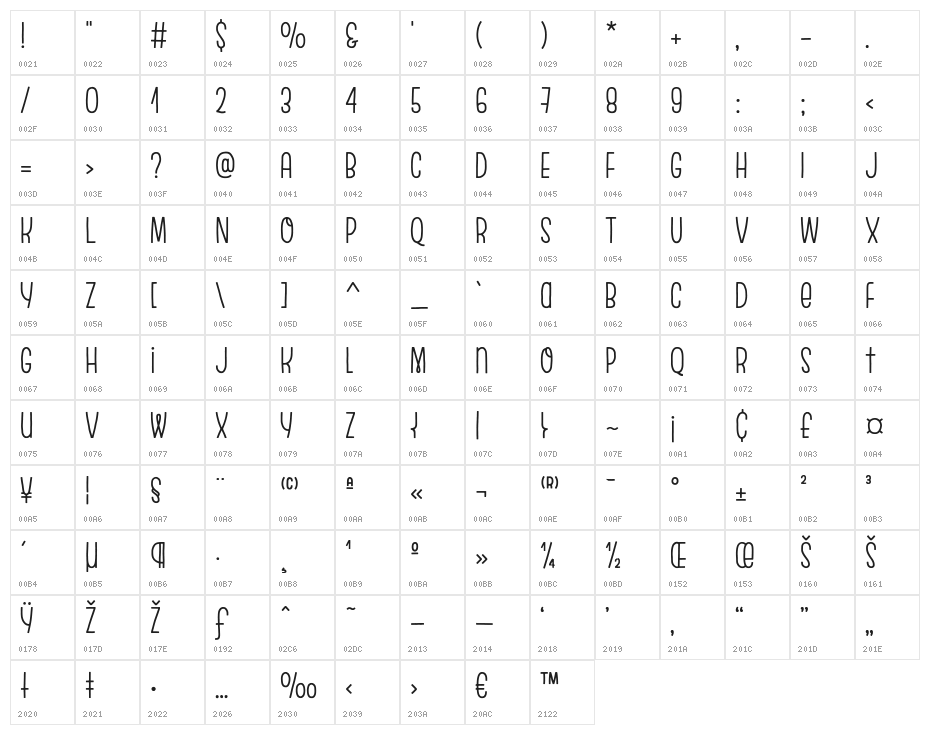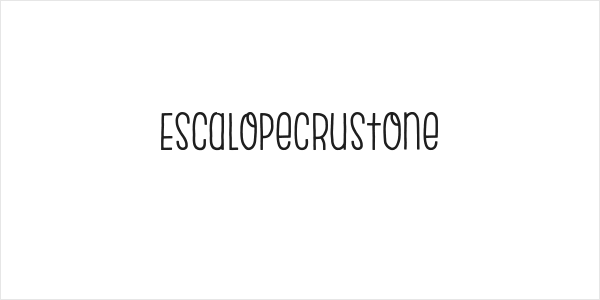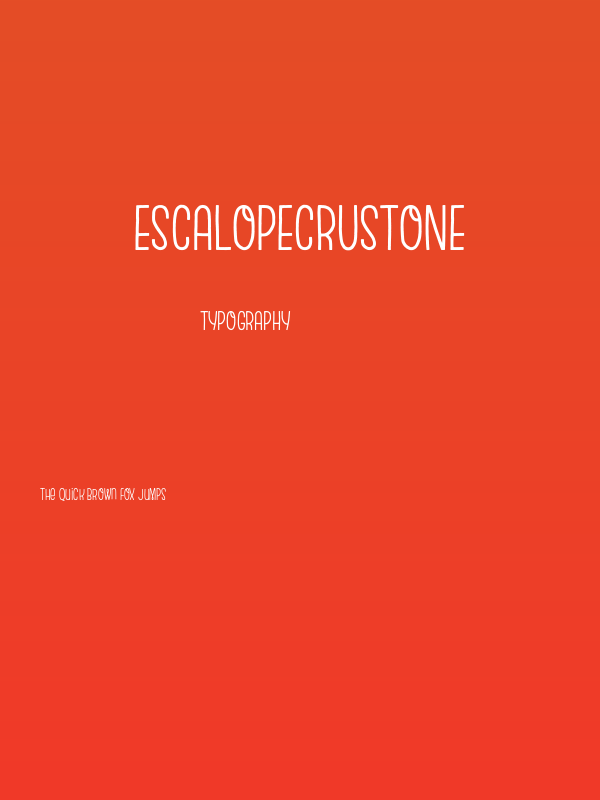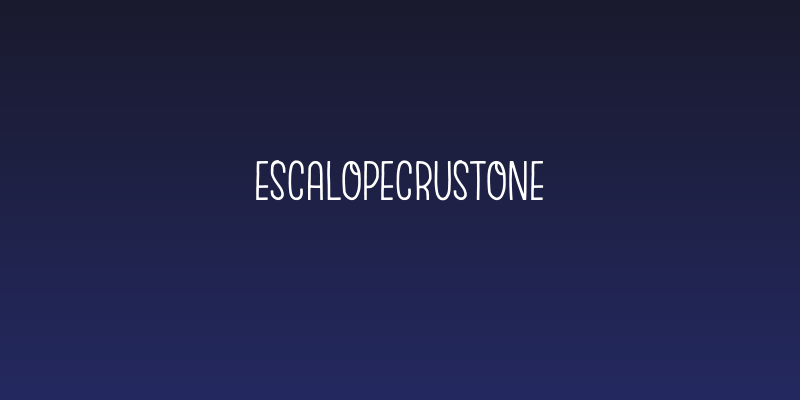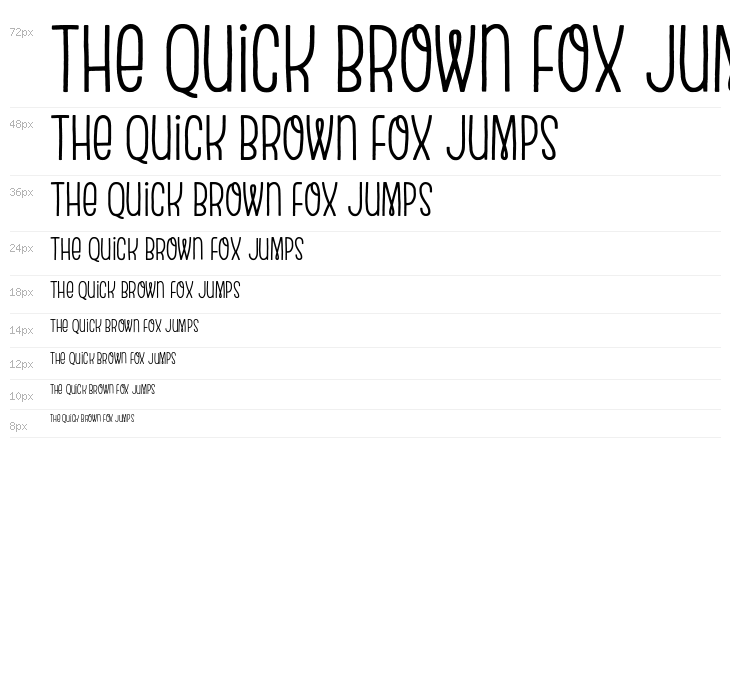
EscalopeCrustOne Font
EscalopeCrustOne Description
This font features a tall, narrow design with a playful and slightly whimsical character. The letters are elongated and have a consistent stroke width, giving it a clean and modern appearance. The uppercase and lowercase letters maintain a uniform style, with rounded edges that soften the overall look. The numerals are similarly styled, ensuring cohesion across all characters. Special characters are included, matching the font's distinctive style. This font is versatile, suitable for both digital and print media, and can add a unique touch to any project.
Proposed ProjectsIdeal for children's books, playful branding, posters, and creative digital content.